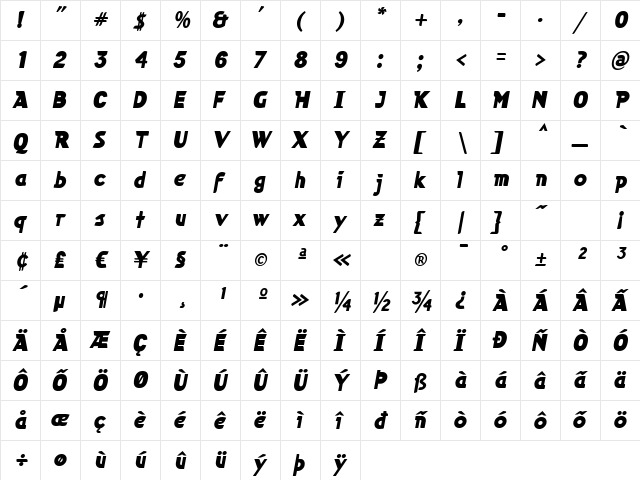
Cuban BlackItalic
Design Context for Cuban Typeface
Cuban offers clean, dependable letterforms without strong stylistic allegiance, making it a practical choice for designers who need flexibility. The dynamic lean of this cut emphasises speed and emphasis in any layout.
Pro Tip: Try Cuban for annotation and caption copy alongside an upright companion — the contrast in angle creates a dynamic but ordered typographic system.